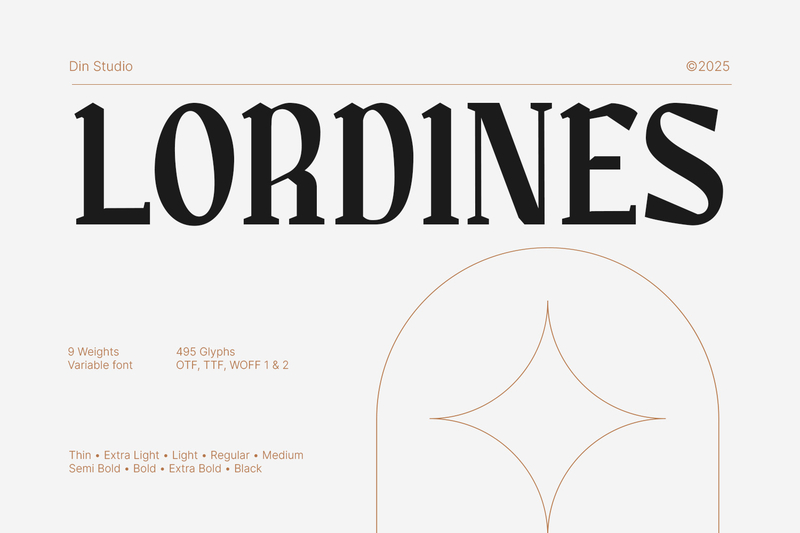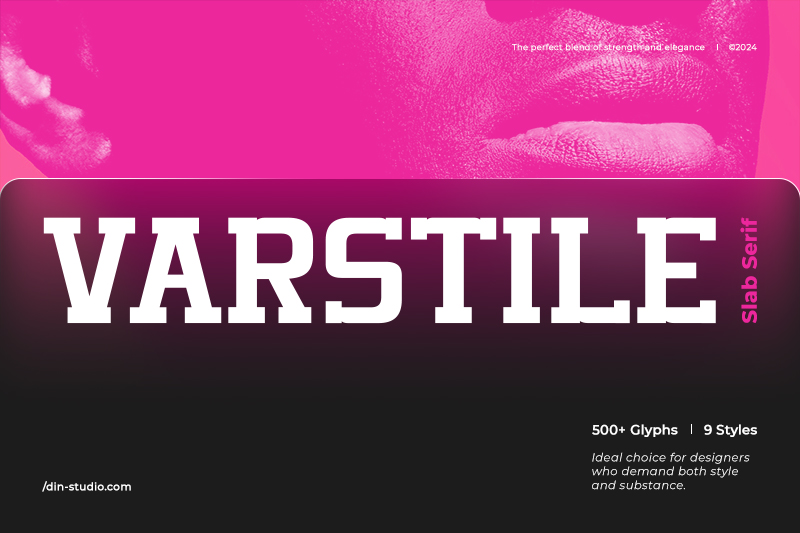
In the world of graphic design, selecting the perfect font family is crucial in creating successful visual communication. A font family is a collection of typefaces that share a common design but vary in style, weight, or size. The best font family encompasses everything from bold to italic, providing a cohesive look for your text. As a result, these fonts exhibit a comparable level of consistency and adaptability in design.
Whether it’s branding, posters, packaging, or professional presentations, a well-chosen font family allows designers to arrange information hierarchies, resulting in a cleaner and more visually appealing outcome. Additionally, the font family’s combination of bold, light, italic, and regular styles enhances every design, infusing it with dynamism and balance.
This article will explore the top font family collections available on the market. Discover a collection of fonts that reflect elegance, modernity, and functionality—ideal for elevating your design projects. So, you can explore a range of fonts that embody strong character and outstanding visuals, from timeless serif styles to clean, modern sans-serif designs.
Without further ado, discover the ultimate recommendation list below and elevate the visuals of your projects now!
Firstly, we have Lordines, an elegant display serif font. Its edges are sharp with striking contrast in its thickness. Lordines boasts a modern vintage style that remains relevant to the current trends.
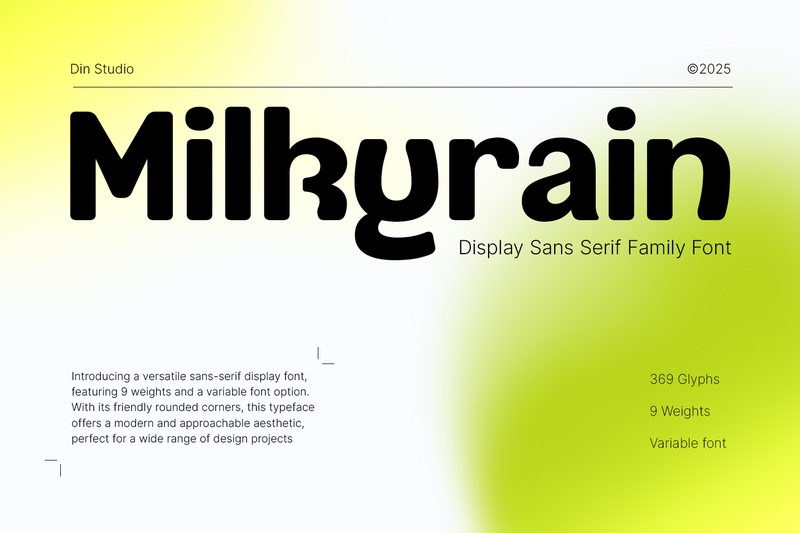
Do you want a sans-serif font family that displays elegance, comfort, and tenderness? Then, use Milkyrain. The fresh, inviting, and playful design of Milkyrain captures a spirit that combines modern charm and friendly warmth. That is why, Milkyrain is perfect for a wide range of visual needs, from logos and branding to packaging and posters.
Introducing Santrio, a geometrical font family that features a sleek, modeIn graphic design, and aesthetic, bringing a unique character to your design. Santrio stands out with its distinctive features, including ink traps that enhance the character and appeal of any text.
Magisans is a modern sans-serif font that combines elegance, simplicity, and flexibility in one versatile and professional typographic package. With its unique and youthful character, this font is suitable for creative designs such as posters or youth products.d designs.
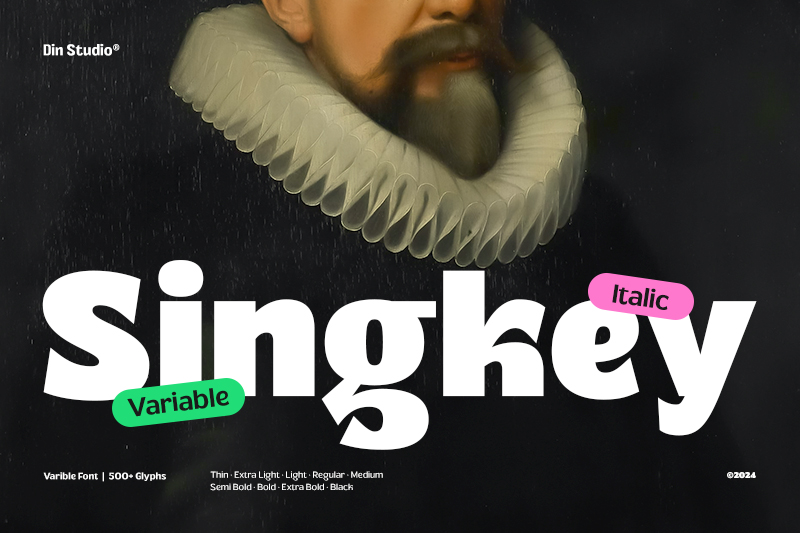
Singkey is a clean and modern sans-serif font that combines classic and retro charm. Designed to give a professional look suitable for editorial and fashion branding, Singkey has high legibility and is applicable in various sizes. Additionally, Singkey has a high precision that makes the font look dynamic and thus is ideal for creating logos and headlines.
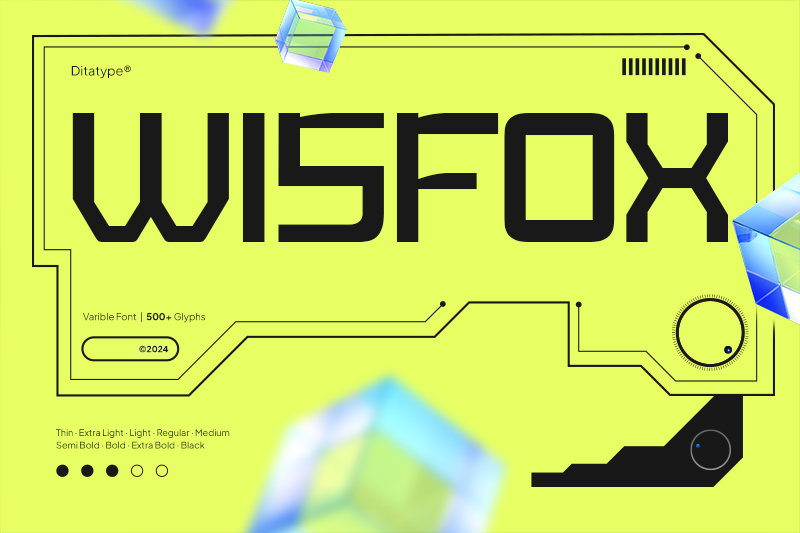
Introducing Wisfox, the best font family crafted to meet the needs of contemporary design in our high-tech world. Wisfox offers characters with clean lines, precise edges, and harmonious proportions. As a result, this font delivers a bold, futuristic vibe perfect for sci-fi-inspire
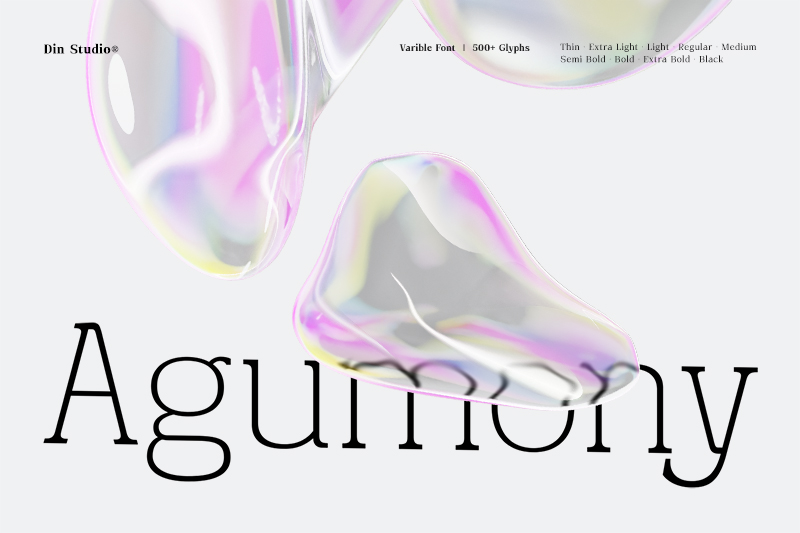
Agumony is a modern serif font family with clean, adaptable, and professional look. This font is complete with smooth, yet bold and eye-catching ligatures. As a result, it is definitely ideal for creating headlines and advertisements.
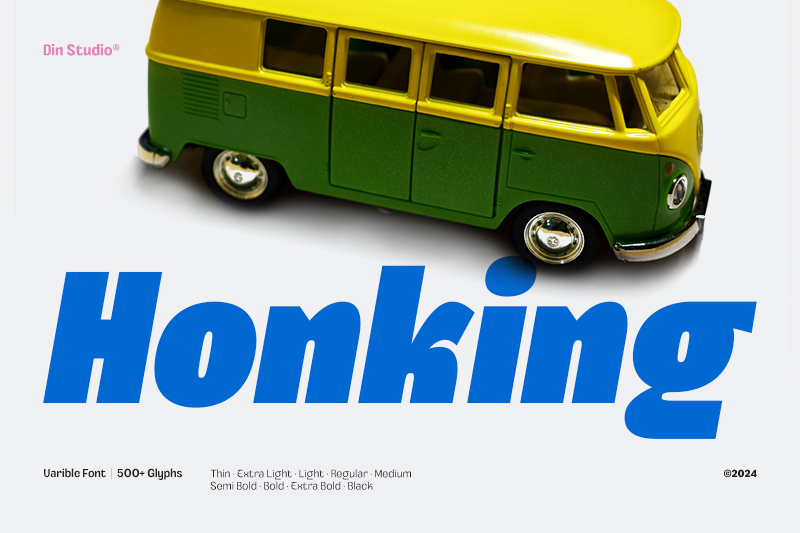
Honking is a versatile sans-serif font family with a bold and masculine modern retro style, featuring characterful letter thickness. Also, this font brings a contemporary touch that enhances visual appeal as it combines clean lines with strong personality.
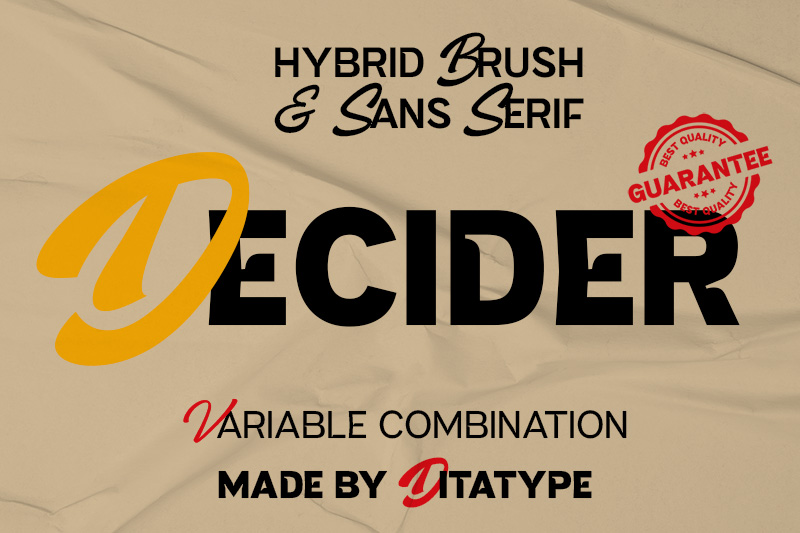
Decider seamlessly blends the smoothness of artistic brush strokes with the boldness of sans-serif, creating a harmonious and dynamic font family. The lines show neatness and proportional balance, creating a look that is both solid and graceful. As a result, Decider is perfect for various design applications, from logos and posters to invitations, packaging, editorial layouts.
Up next is Gullying. This sans-serif font family effortlessly combines simplicity with modern elegance in a cohesive set. Featuring sleek lines and a cohesive aesthetic, Gullying is ideal for those who appreciate minimalist and straightforward designs. Moreover, this font embraces the Cyrillic language and offers perfect kerning for enhanced legibility.
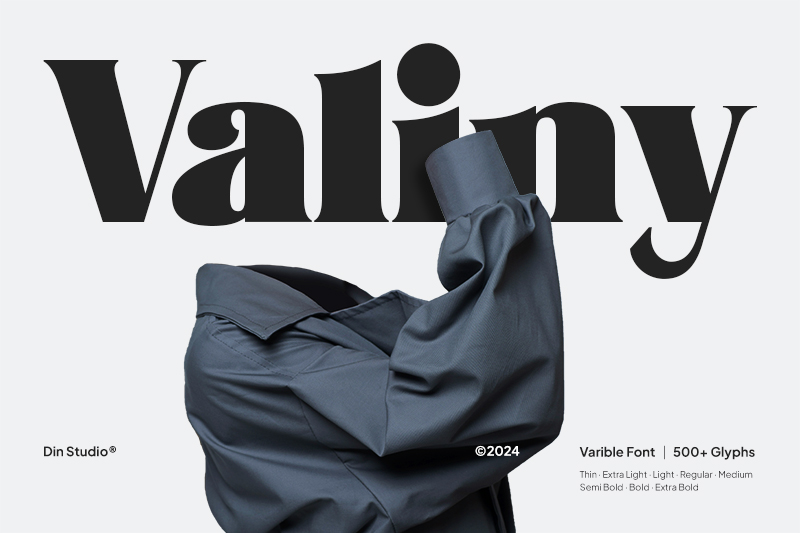
Valiny is a cohesive, elegant serif font family. The shapes of the letters are balanced with smooth details. This font is perfect for designing titles, logos, posters, invitations, packaging, and magazine layouts. It also features stylistic sets, ligatures, and multilingual support, making Valiny suitable for various creative projects.
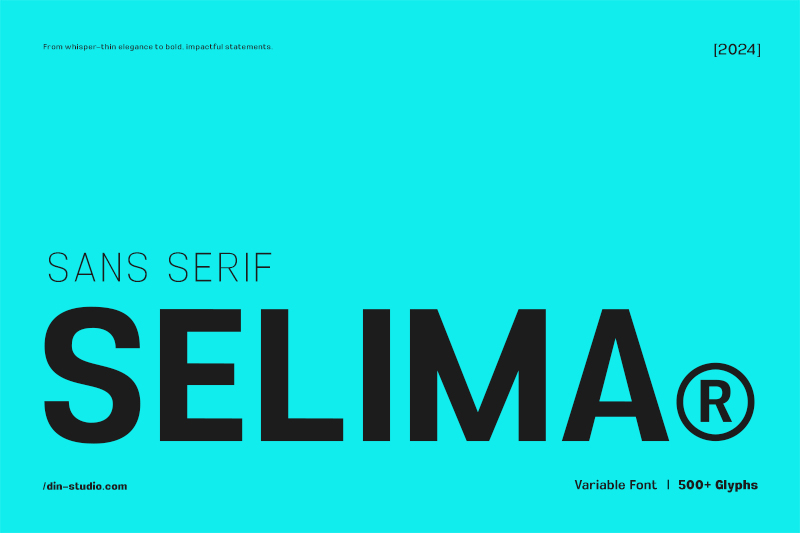
Diving into the world of fonts improves your visual communication and develops an effective identity. Explore the fonts on this list and discover the perfect combination to elevate your design project. So, follow along to our articles for expert tips and recommendations on the best fonts that will elevate your design projects!